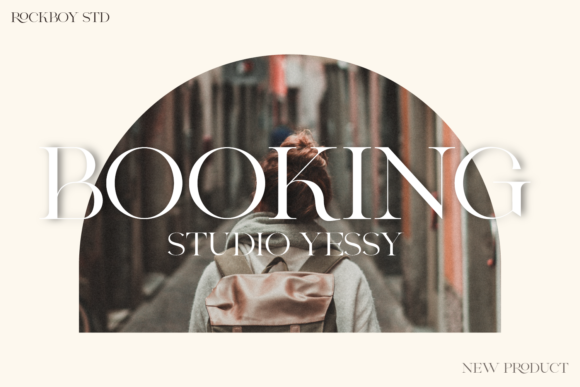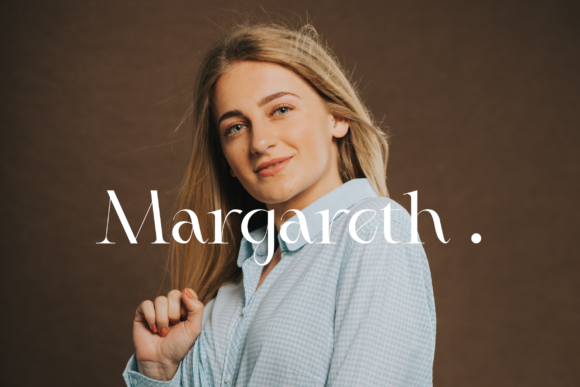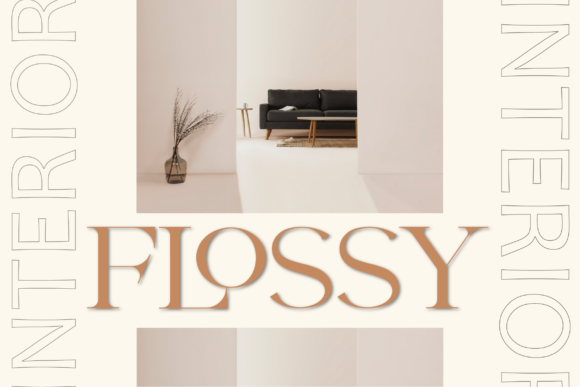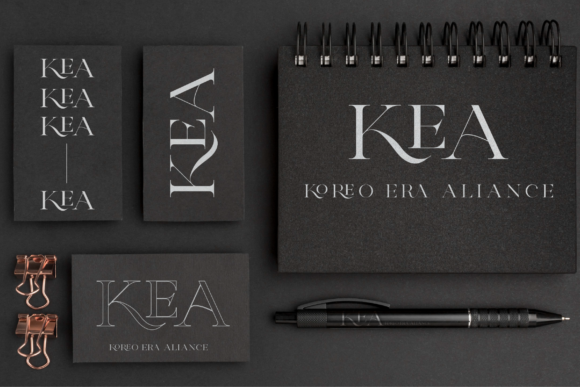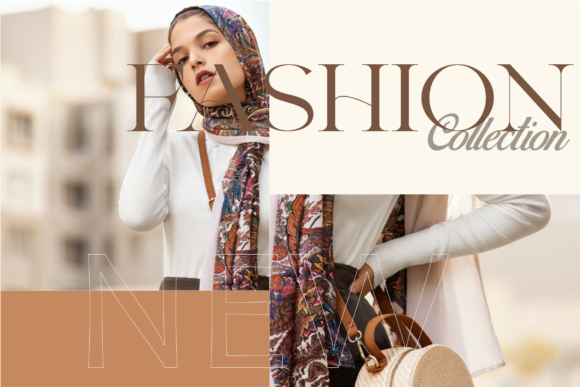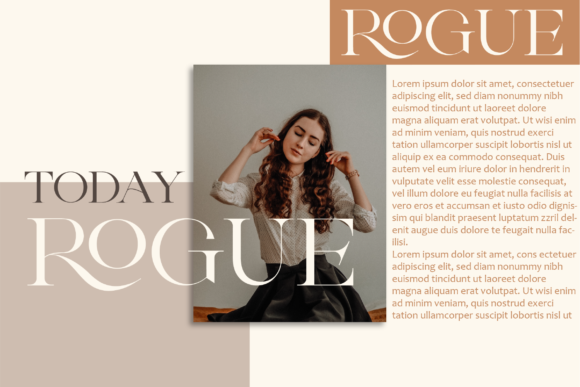
Introduction to Rosica Font
Do you ever find yourself lost in a world of endless design possibilities, searching for that perfect font to elevate your next project? For many of us, this is a familiar experience. The moment when everything comes together – colors, shapes, and, of course, the perfect typography. This is where the Rosica Font steps in, a game-changing addition to any designer’s toolkit.
As a free download, the Rosica Font offers high-quality design resources that cater to a wide range of creative projects, from elegant invitations to modern website headers. Its elegant, thin lettering is a masterclass in balance and sophistication, perfectly capturing the essence of contemporary design while still paying homage to classic calligraphic influences.
With its transparent background and versatile style, the Rosica Font is an invaluable asset for designers seeking to push the boundaries of their work. Whether you’re a seasoned pro or just starting out, this font is sure to bring your creative vision to life in a way that’s both fresh and refined.
Key Features of Rosica Font
- Unique, hand-drawn style with a transparent background, ideal for layering and customization.
- Available in 5 different weights: Light, Regular, Medium, Bold, and Extra Bold, providing flexibility for various design needs.
- Each font file is optimized for high-resolution displays, with a resolution of 300 DPI or higher.
- Perfect for use in digital design, print materials, and web applications, due to its clean and elegant design.
Honest Review: Rosica Font
I recently stumbled upon the Rosica Font while searching for a design resource for a creative project. As a designer, I’m always on the lookout for high-quality fonts that can elevate my work.
Here are some pros and cons I’ve observed after using the Rosica Font:
- ✨ The Rosica Font features a transparent background, which allows for seamless integration with various design elements.
- ✨ The font is incredibly versatile and can be used for a wide range of creative projects, from typography to logo design.
- ⚠️ The font’s design may not be as polished or refined as some other high-end fonts on the market.
Overall, I’m impressed with the Rosica Font’s potential and versatility. While it may not be perfect, it’s a great design resource for designers who need a high-quality font for a creative project. With a little creativity, the Rosica Font can be a valuable addition to any design toolkit.
Tips for Getting the Most Out of Rosica Font
For the best results, use Rosica Font in high-quality designs, especially for creative projects that require a unique and stylish touch. Make sure to pair it with a transparent background to make it stand out. You can also experiment with different font sizes and colors to create a visually appealing effect.
Rosica Font is a versatile design resource that can be used in various creative projects, such as logo designs, social media graphics, and presentations. Its unique style and high-quality design make it an ideal choice for designers looking for a free download with a transparent background.